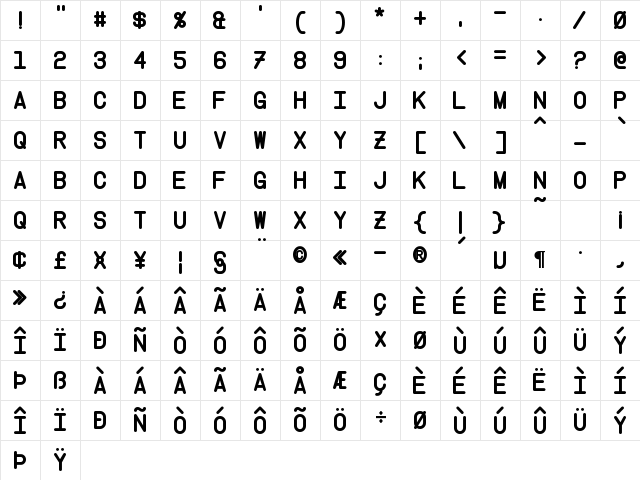
Instruction Bold
| Foundry | Pixel Sagas |
| Designer | Neale Davidson |
Design Context for Instruction Typeface
Instruction takes a measured approach to typography — its balanced proportions and neutral character make it a reliable workhorse for both digital and print work. Its bold stroke weight gives it real presence on the page.
Pro Tip: Pair Instruction with a font of contrasting weight or personality to build a more expressive typographic hierarchy.